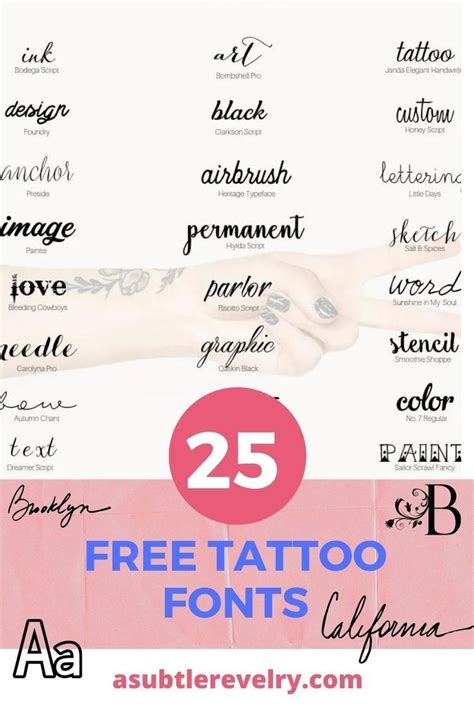
Great for beverage labels, logos, and anywhere you want a victorian feel to your design project. Free or $5.99 per month for premium features. Below is a collection of tattoo fonts.
Below is a collection of tattoo fonts. This tattoo font includes 2 types of each letter, uppercase & lowercase characters, punctuation and numerals. Tattoo letter design free fonts. There are a many website that provide the different types of fonts like baseball font, tattoo fonts, sports font, jersey fonts etc some of them are free, but some of them charge.
Or alternatively contact me at info@tattoowoo.com. Rose tattoo font is free for any personal work. Picking a font for your next tattoo is a very important decision. Fortunately, we have many unique tattoo font styles for men and women, such as calligraphy, cursive, and traditional styles. Try one of these free tattoo fonts for projects, logos, blogs, graphic design and.
Here you can create and download unlimited, custom tatto designs completely free. Going with the more handwriting font style, rose is free for any personal design work. Lettering styles include tribal, traditional sailor, blackletter, fancy, cursive, script, etc. Great for beverage labels, logos, and anywhere you want a victorian feel to your design project. Fontget.com has the largest selection of.
The commercial version is revised, with additional glyphs, and can be purchased on argel's website. This badass comes in two formats (otf and ttf). Do not miss our most special fonts for your tattoos, drawings, prints, murals. Tattoo letter design free fonts. Lettering styles include tribal, traditional sailor, blackletter, fancy, cursive, script, etc.
It is made to decorate your logos, posters, merchandise, headlines and, surely, sketches! Once you create a piece of artwork that you like you can save it to your computer or host it with us for free in one click. Angilla tattoo is a heavy script with nice swashes to add that special something to lettering. Tribal letter designs font.
The typeface is elaborate without being too feminine and is highly readable. You can also use this font to take idea about different type of tattoo design , designer can take reference to create tattoo related designs. Using our library of fonts, artwork & effects you can type any word or phrase & style it to your liking. 20+ best.